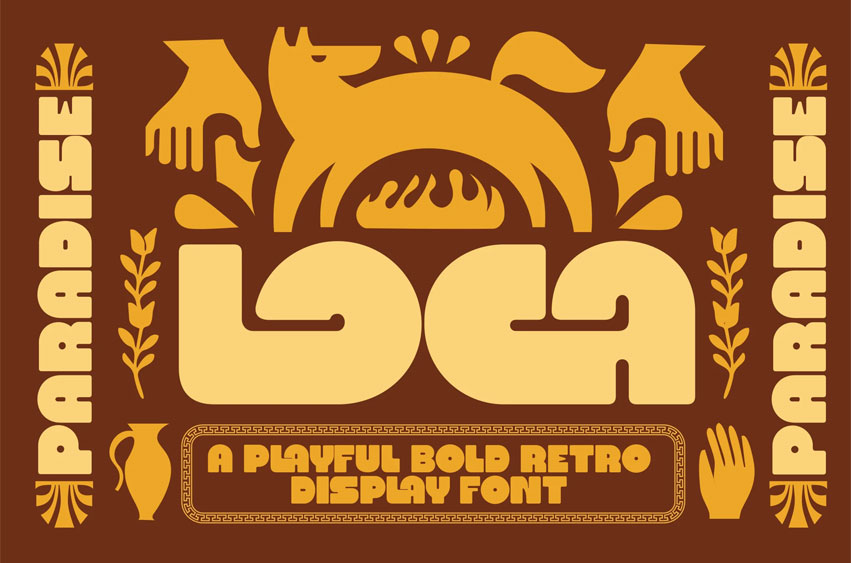
Loca Font Step into a world of vibrant retro energy with LOCA, a bold and playful display typeface inspired by the carefree spirit of the ’70s. Featuring chunky geometric shapes and smooth rounded corners, LOCA is designed to make a big, joyful statement in any creative project.
LOCA brings an instant touch of nostalgia and fun. Its strong personality, combined with decorative elements and unique ligatures, makes it perfect for designers who want to stand out.
• Custom ligatures